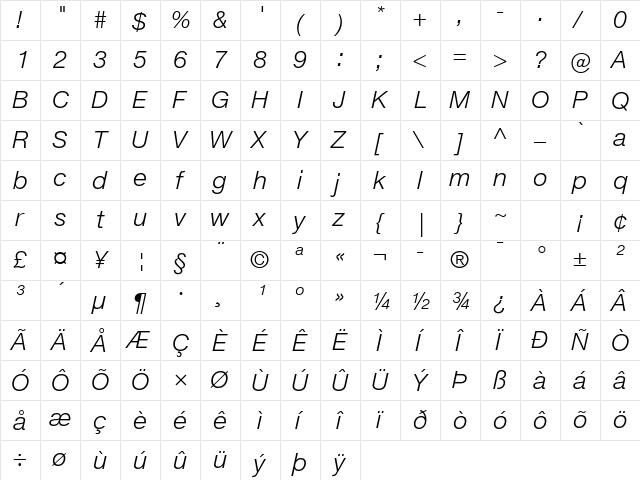
Helvetica Neue eText Pro Light Italic
| Foundry | Linotype GmbH |
| Designer | Linotype Design Studio |
Design Context for Helvetica Neue eText Pro Typeface
Helvetica Neue eText Pro is a composed and adaptable typeface that performs quietly and consistently across a wide range of design contexts. The slanted form adds forward momentum and visual energy. The delicate stroke weight brings airiness and refinement to layouts.